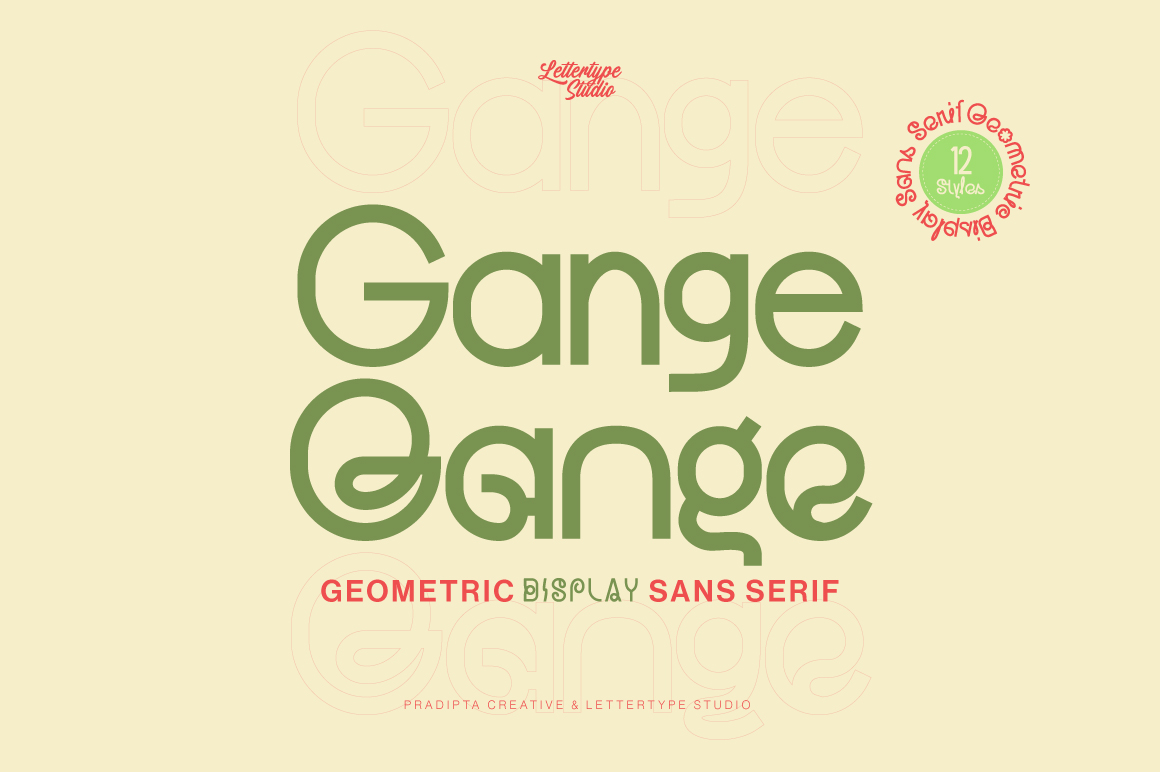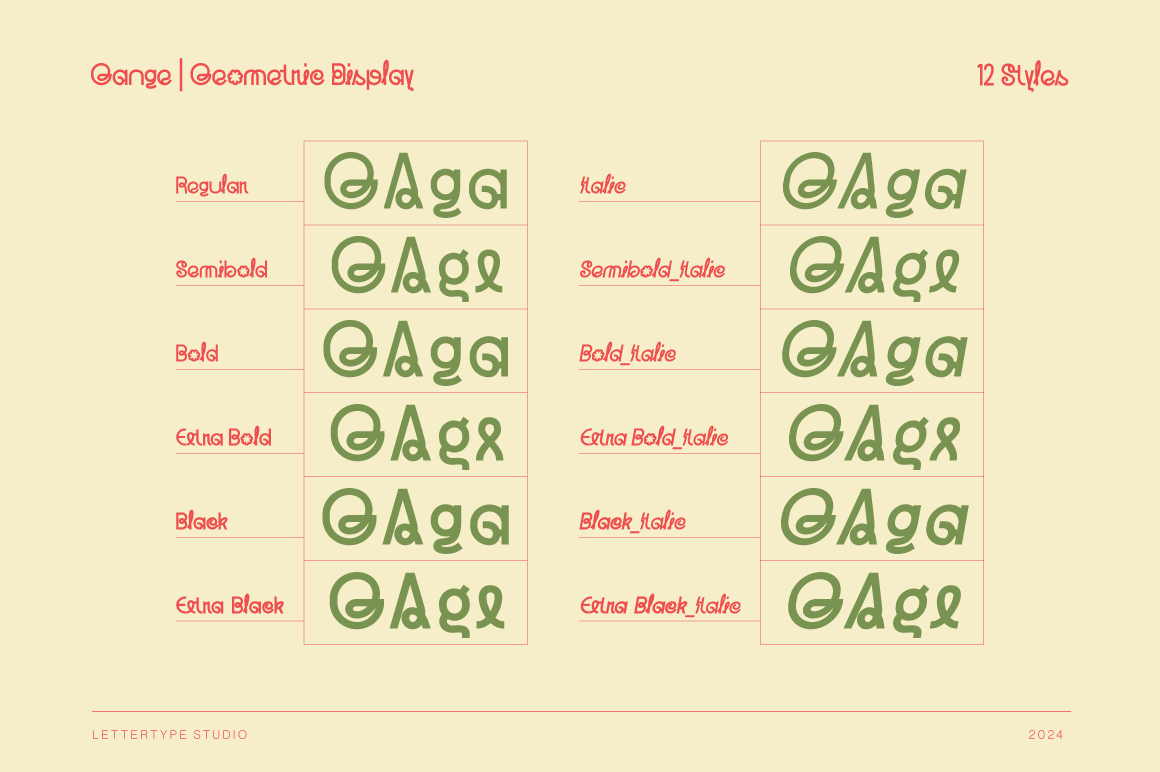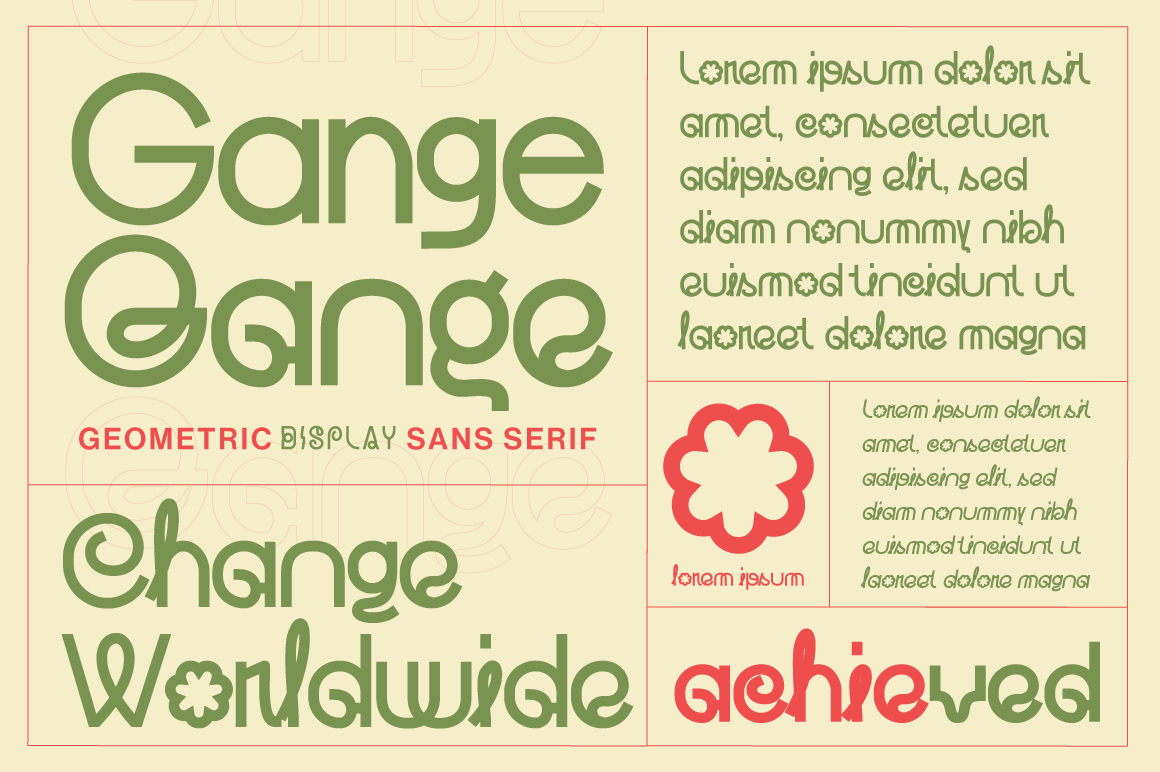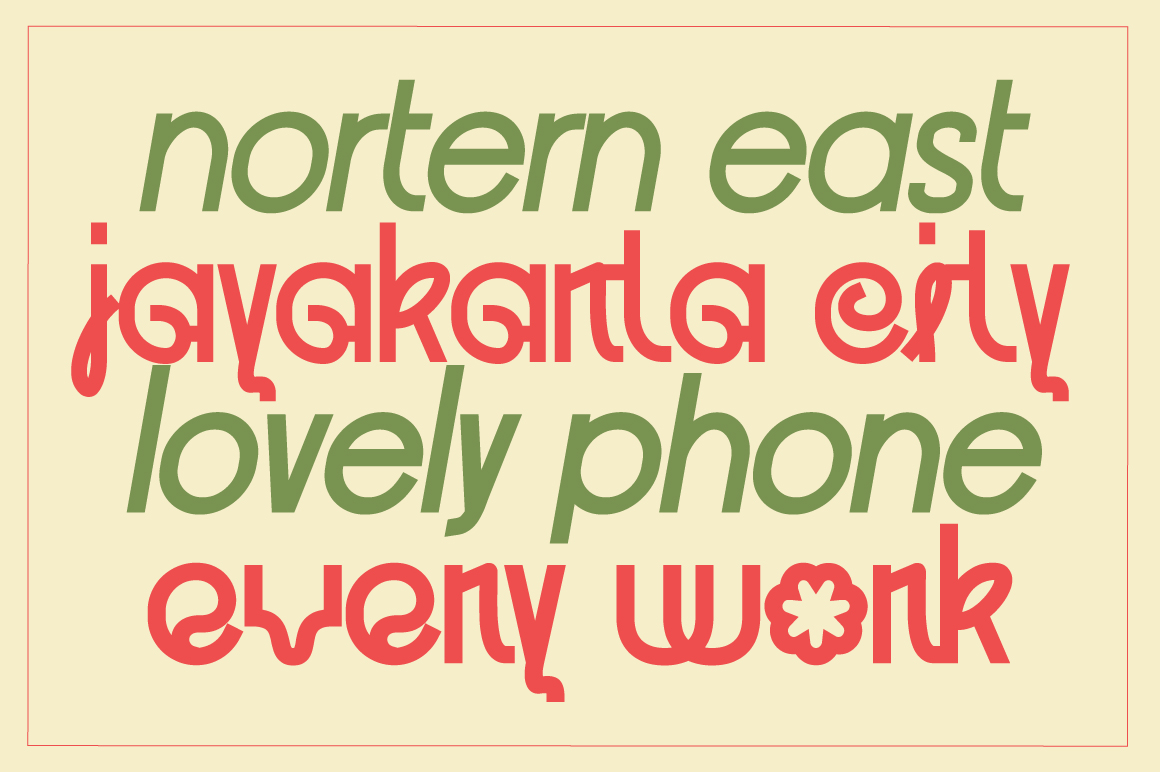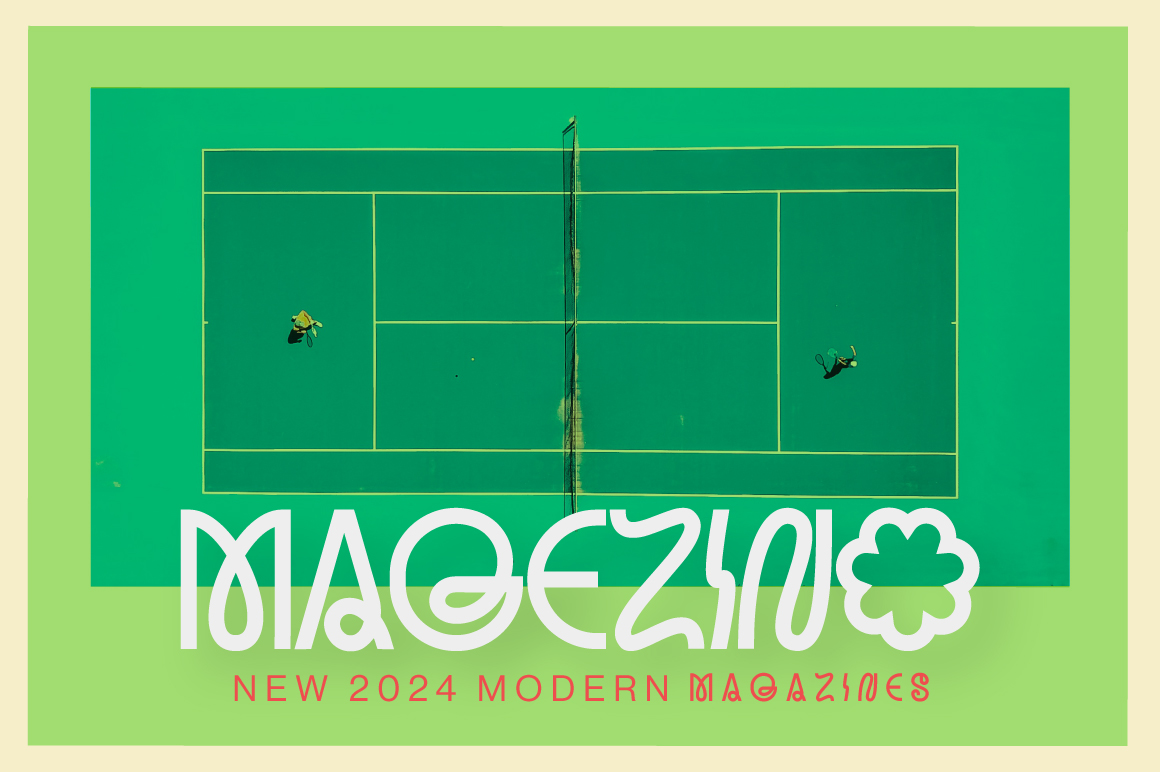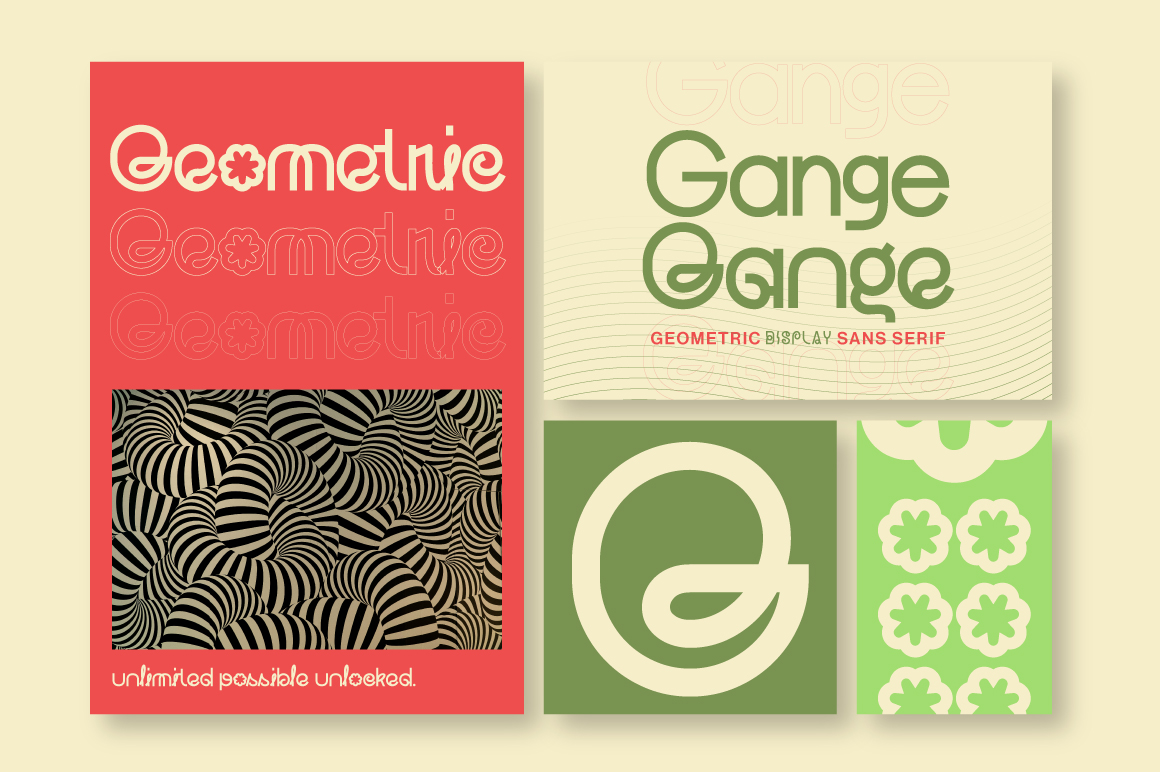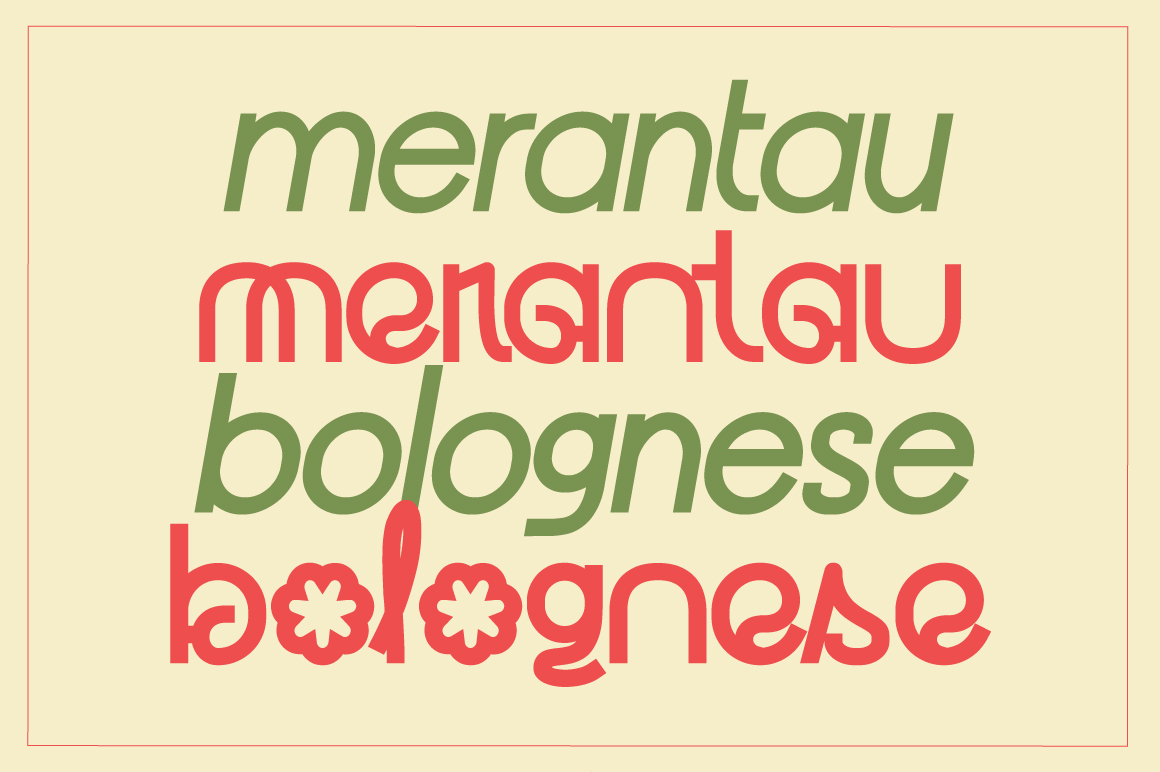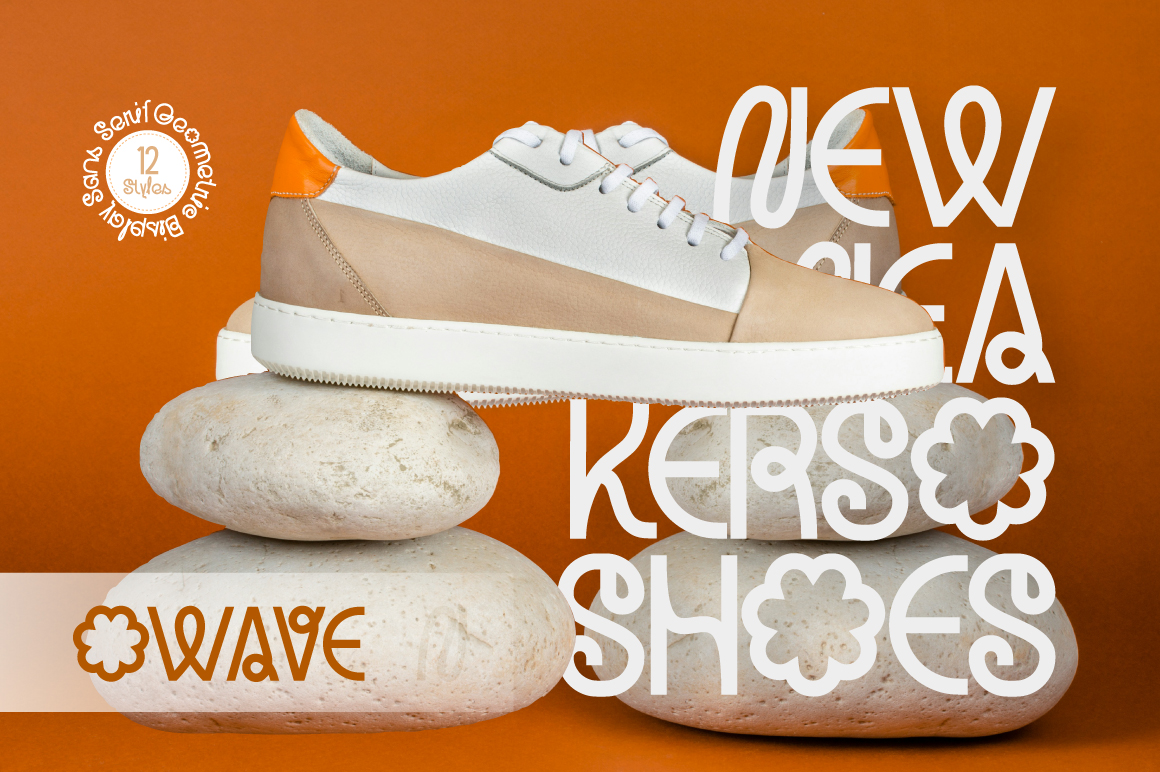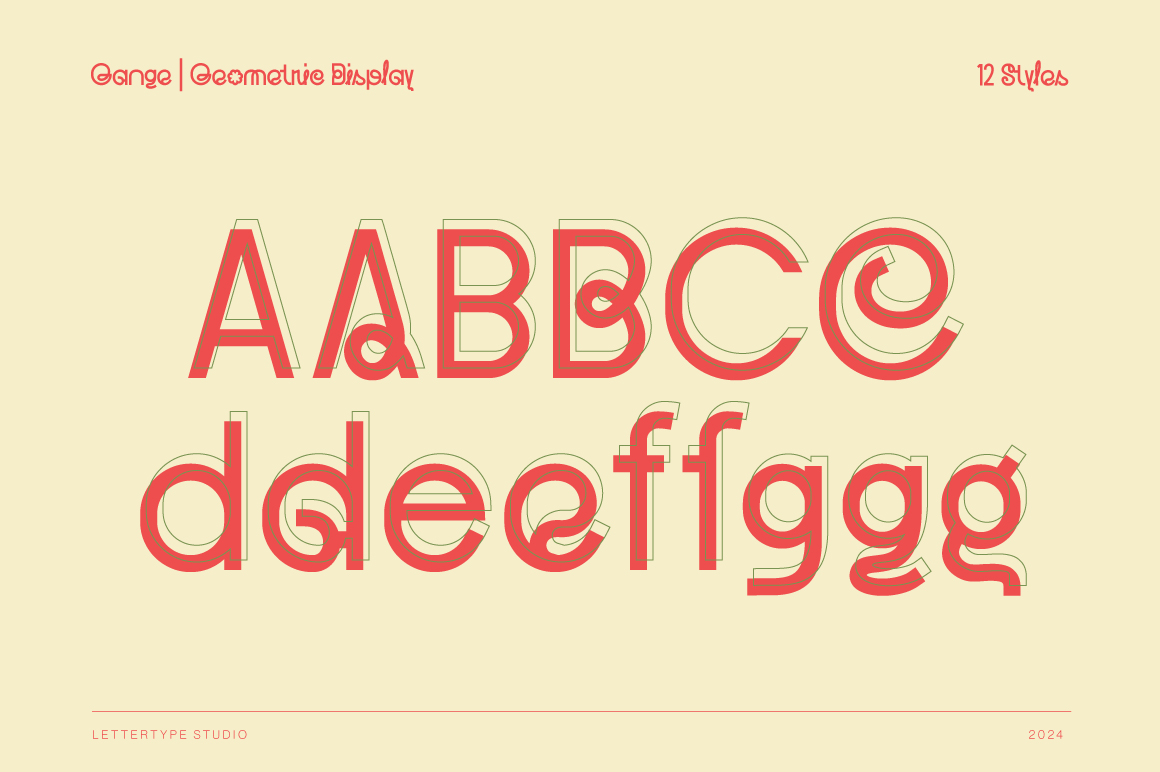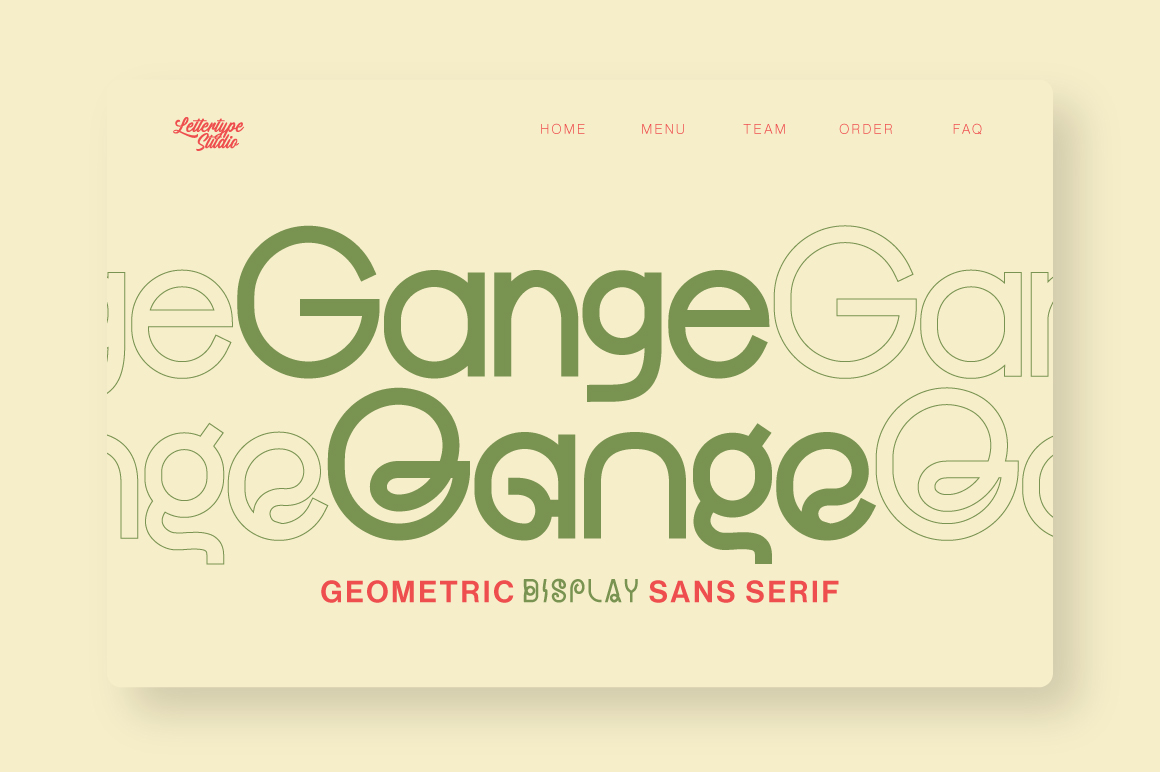
Gange - Regular
Gange - Italic
Gange - SemiBold
Gange - SemiBold Italic
Gange - Bold
Gange - Bold Italic
Gange - ExtraBold
Gange - ExtraBold Italic
Gange - Black
Gange - Black Italic
Gange - ExtraBlack
Gange - ExtraBlack Italic
Gange is a geometric display sans serif font designed for creativity and bold expression. With over 57 alternate glyphs and 12 styles, it offers endless customization options to craft unique and standout designs with precision.
Perfect for branding, packaging, posters, and editorial projects, Gange combines minimalism and modern structure in every letterform. It’s the ideal choice for designers seeking a professional yet artistic geometric sans that adds confidence and versatility to any visual identity.